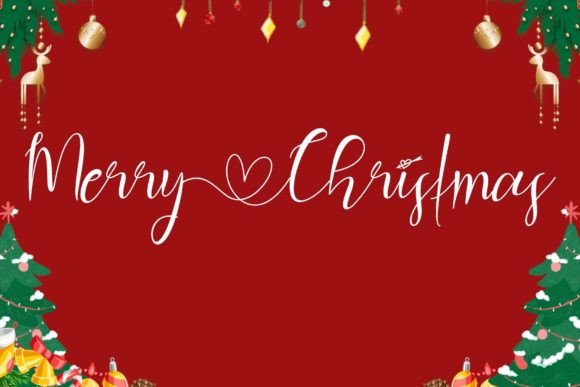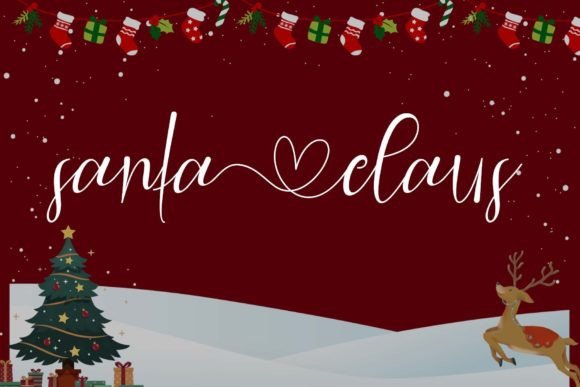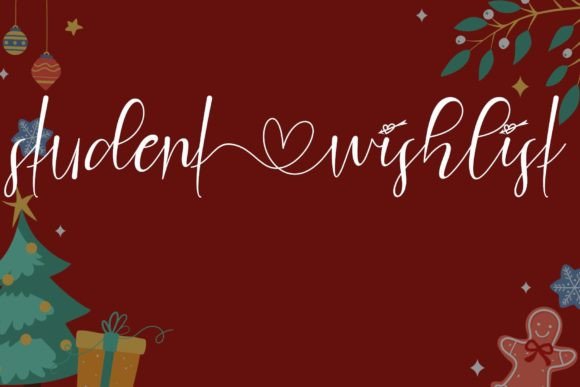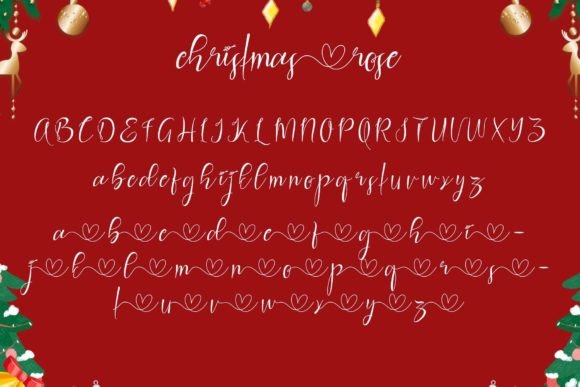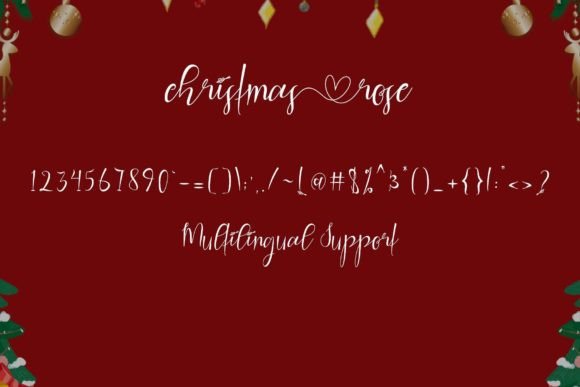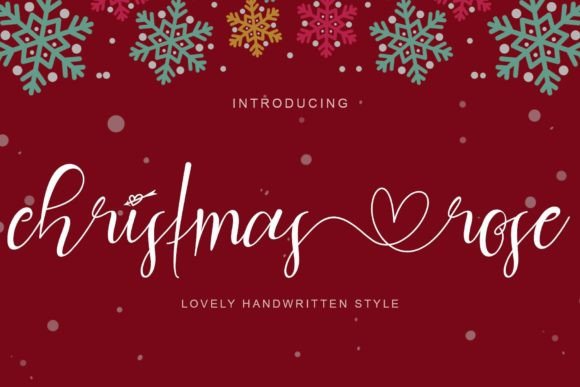
Introducing the Enchanting Christmas Rose Font: Elevate Your Designs with Love
The holiday season is upon us, and with it comes the quest for the perfect font to make our designs shine. If you’re a designer, crafter, or DIY enthusiast looking for a touch of elegance and whimsy, look no further than the Christmas Rose Font. This beautiful, handwritten font is adorned with unique love decorations, making it an ideal choice for a variety of projects, from weddings and engagements to Christmas and Valentine’s Day celebrations.
What Makes Christmas Rose Font So Special?
Christmas Rose Font is more than just a pretty face. It’s a comprehensive font package that includes:
- Uppercase and lowercase letters for versatile typography
- Alternates to provide variations and creative freedom
- Numerals and punctuation for complete sentence structure
- Multilingual support to reach a broader audience
This extensive feature set makes Christmas Rose Font perfect for a wide range of applications, including:
- Wedding and engagement invitations, cards, and decorations
- Stickers, banners, and posters for events and promotions
- Print materials, such as brochures, flyers, and business cards
- Branding and packaging for businesses and products
- Christmas and Valentine’s Day themed projects, like holiday cards and gift tags
Design Possibilities with Christmas Rose Font
With Christmas Rose Font, your design possibilities are endless. Imagine creating:
- Romantic wedding stationery with custom illustrations and decorations
- Eye-catching posters and banners for holiday promotions and sales
- Personalized gifts, such as customized mugs, tote bags, and phone cases
- Beautiful social media graphics and blog posts for Valentine’s Day and Christmas
Why Choose Christmas Rose Font?
In a world where fonts are plentiful, Christmas Rose Font stands out for its:
- Unique and beautiful love decorations, adding a touch of elegance to any design
- Handwritten style, conveying a sense of warmth and personality
- Comprehensive feature set, making it suitable for a wide range of projects
- Multilingual support, allowing you to reach a global audience
Get Creative with Christmas Rose Font
Whether you’re a seasoned designer or a crafty DIY enthusiast, Christmas Rose Font is the perfect addition to your toolkit. With its versatility, beauty, and comprehensive feature set, you’ll be able to create stunning designs that capture the essence of love, joy, and celebration.